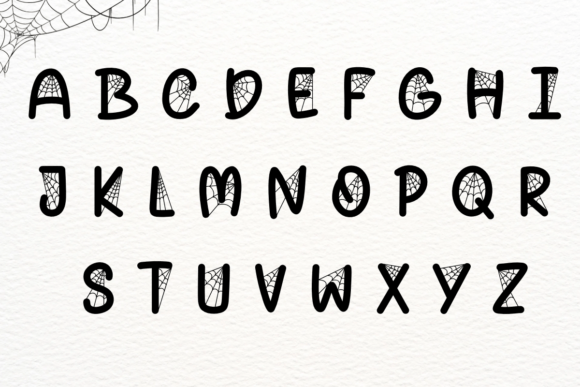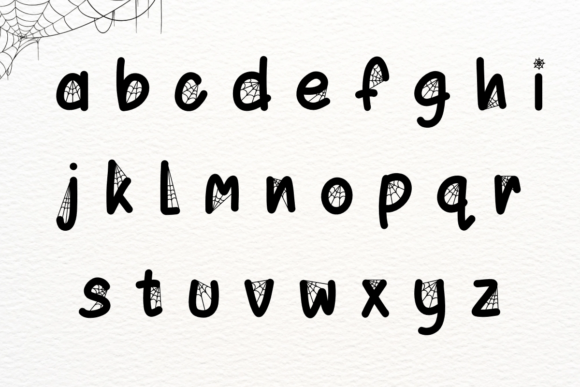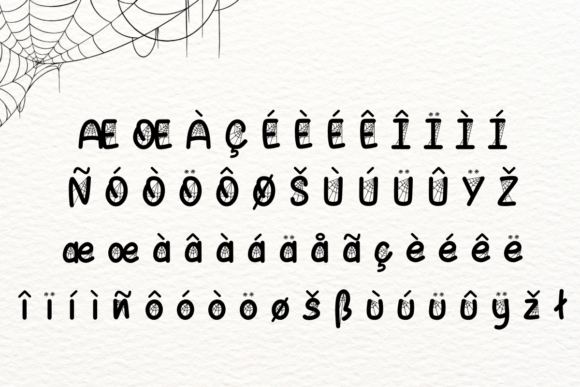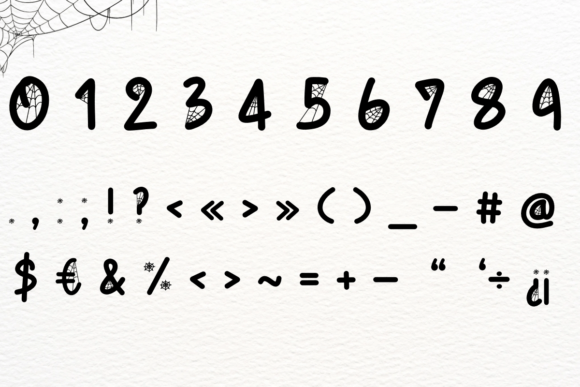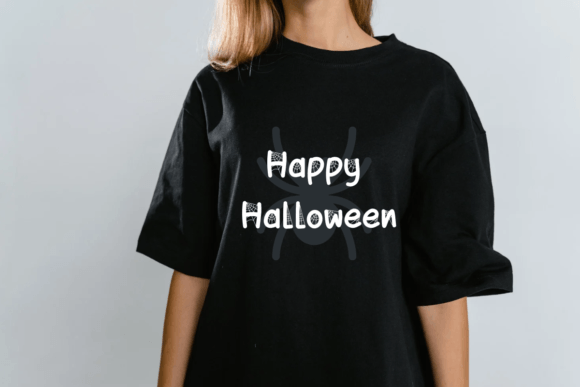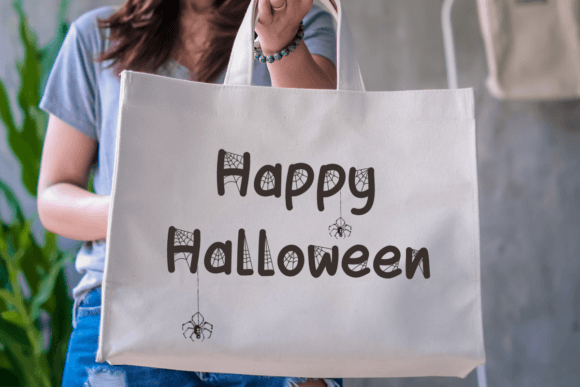
Happy Halloween Font: A Spook-tacular Addition to Your Design Collection
As the spookiest time of the year approaches, designers and crafters are on the lookout for the perfect font to add a touch of eerie elegance to their creations. Look no further than the Happy Halloween Font, a cool handwritten font that’s sure to cast a spell on your audience. With its incredibly distinct and timeless style, this font is the perfect addition to your design collection.
The Story Behind Happy Halloween Font
Happy Halloween Font is a carefully crafted handwritten font that’s designed to evoke the spirit of the spookiest season. Its unique and quirky style is reminiscent of classic Halloween decorations, making it the perfect choice for designers and crafters who want to create spectacular designs that capture the essence of the holiday.
What Makes Happy Halloween Font So Special?
So, what sets Happy Halloween Font apart from other fonts in its class? Here are just a few features that make it a standout:
- Distinct and Timeless Style: Happy Halloween Font boasts an incredibly distinct and timeless style that’s sure to grab attention. Its unique lettering and quirky flair make it the perfect choice for designers and crafters who want to add a touch of personality to their creations.
- Handwritten Charm: This font is carefully crafted to mimic the look and feel of handwritten text, giving it a warm and inviting feel that’s perfect for a wide range of design applications.
- Versatility: Happy Halloween Font is incredibly versatile, making it suitable for a wide range of design projects, from Halloween-themed party invitations and decorations to social media graphics and more.
How to Use Happy Halloween Font in Your Designs
Now that you’re eager to get your hands on Happy Halloween Font, let’s explore some ways you can use it in your designs:
- Halloween Party Invitations: Create spook-tacular party invitations that set the tone for a howling good time. Use Happy Halloween Font to add a touch of whimsy and personality to your invites.
- Social Media Graphics: Add a touch of Halloween flair to your social media graphics with Happy Halloween Font. From Facebook posts to Instagram stories, this font is sure to make your content stand out.
- Decorations and Signage: Use Happy Halloween Font to create eye-catching decorations and signage for your Halloween party or event. From banners to tombstones, this font is sure to add a touch of spooky elegance.
Tips and Tricks for Working with Happy Halloween Font
To get the most out of Happy Halloween Font, here are a few tips and tricks to keep in mind:
- Experiment with Colors: Happy Halloween Font looks great in a range of colors, from bold and bright to muted and pastel. Experiment with different color combinations to find the perfect look for your design.
- Mix and Match Fonts: Don’t be afraid to mix and match Happy Halloween Font with other fonts to create a unique and eye-catching look.
- Play with Texture and Patterns: Add an extra layer of depth and interest to your design by incorporating texture and patterns. Happy Halloween Font looks great paired with spooky textures like cobwebs and pumpkins.
Whether you’re a seasoned designer or a crafting novice, Happy Halloween Font is a must-have addition to your design collection. So go ahead, get creative, and have a Happy Halloween!